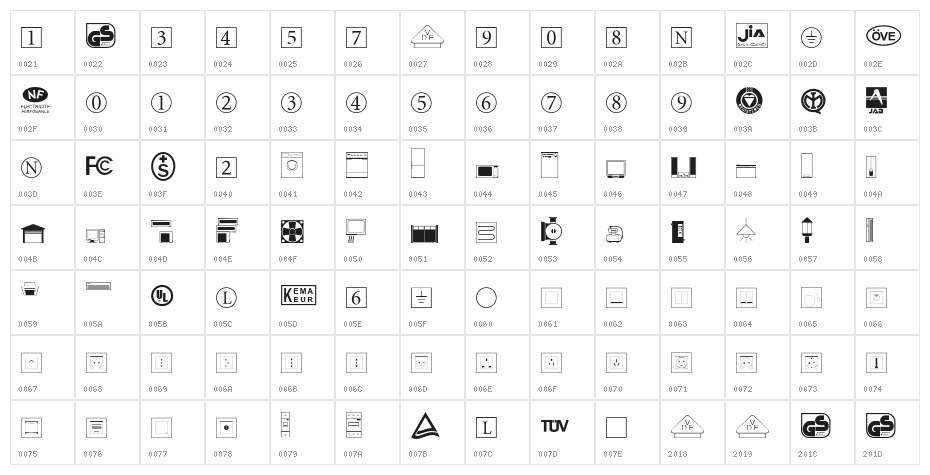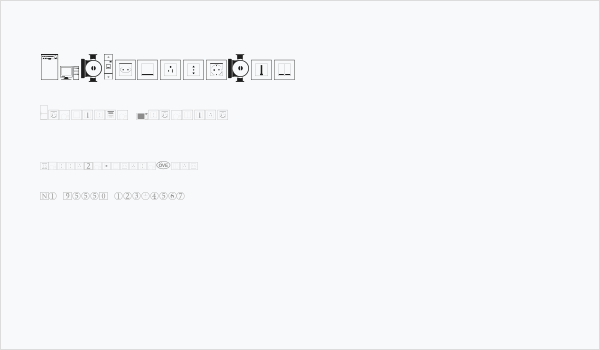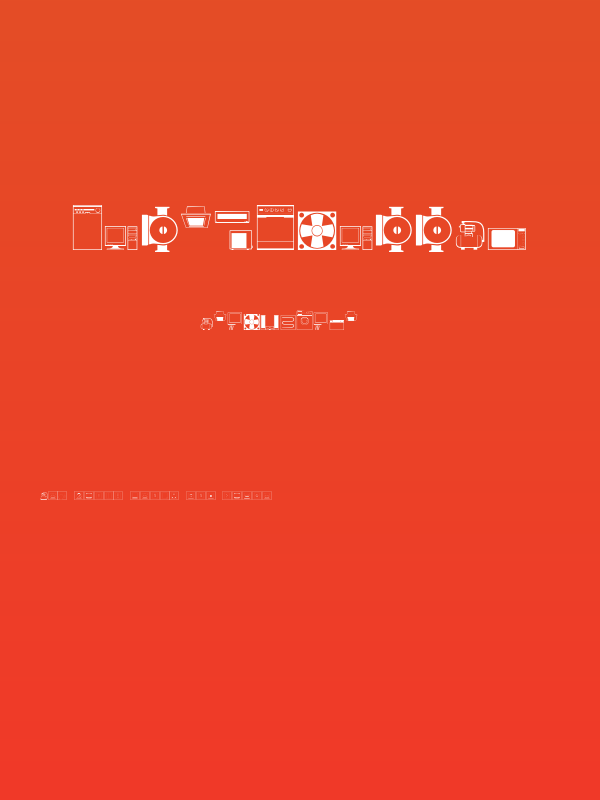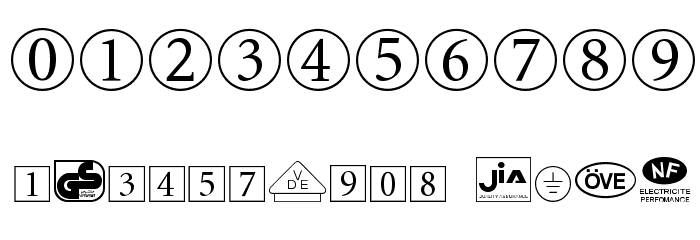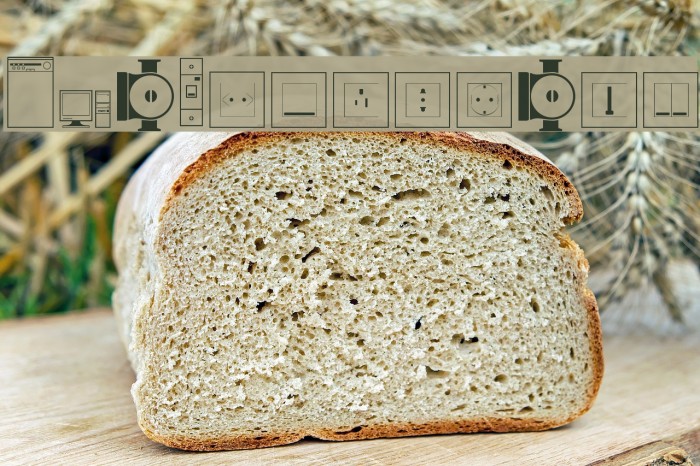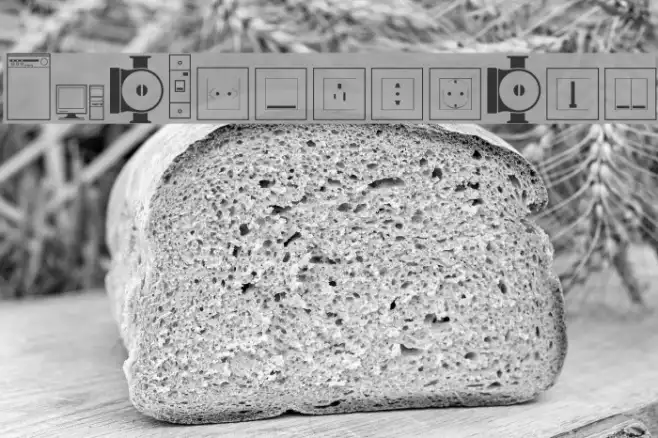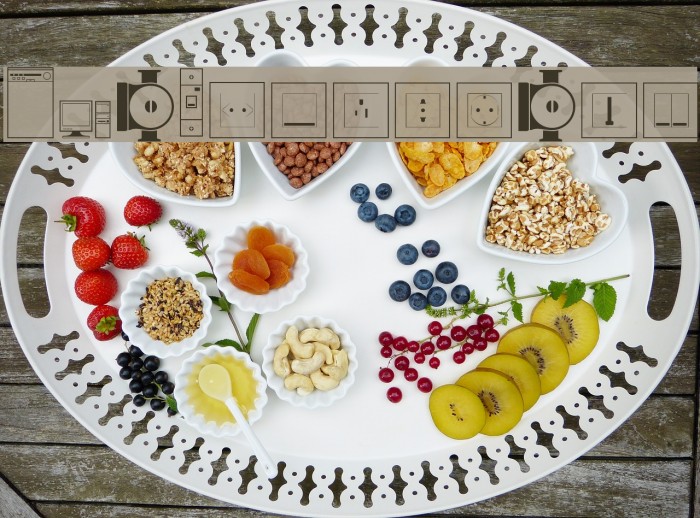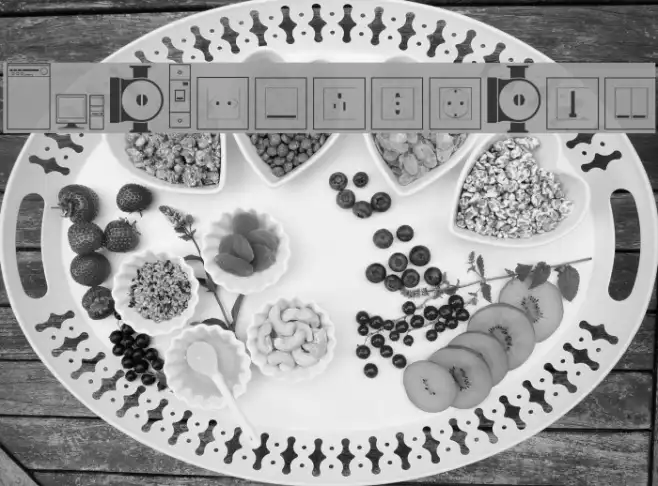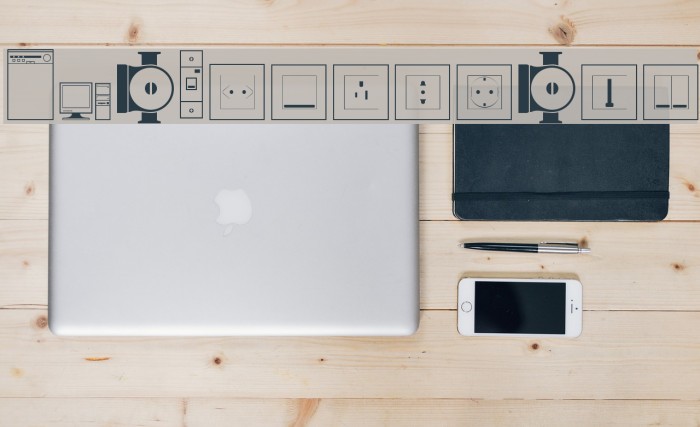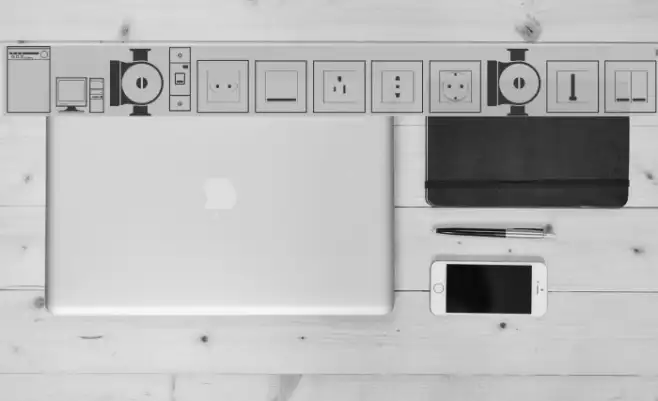
ELSymbolsStd Font
ELSymbolsStd Description
A pictogram-based symbol set featuring detailed line art illustrations of electrical appliances, sockets, switches, and certification marks, all enclosed in simple geometric shapes such as squares and circles. The icons are clear, minimal, and highly recognizable, designed for technical or instructional use.
| Overall Style | Technical, Modern, Minimalist |
| Use Case | Technical diagrams, Manuals, Labels, Infographics |
| Proposed Projects | Instruction manuals, electrical schematics, signage, technical documentation, educational materials. |